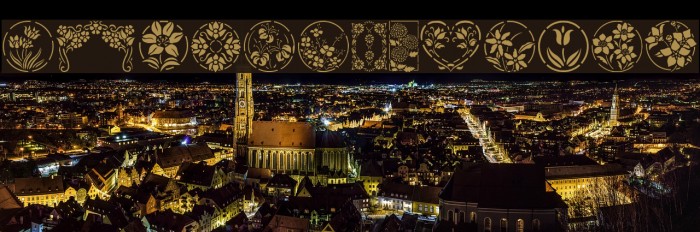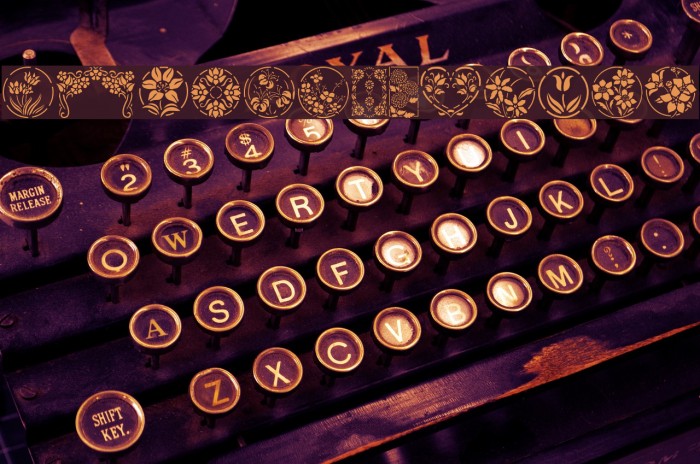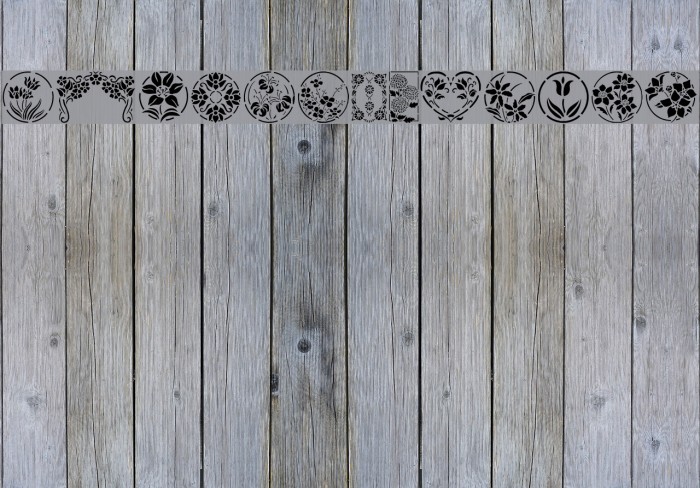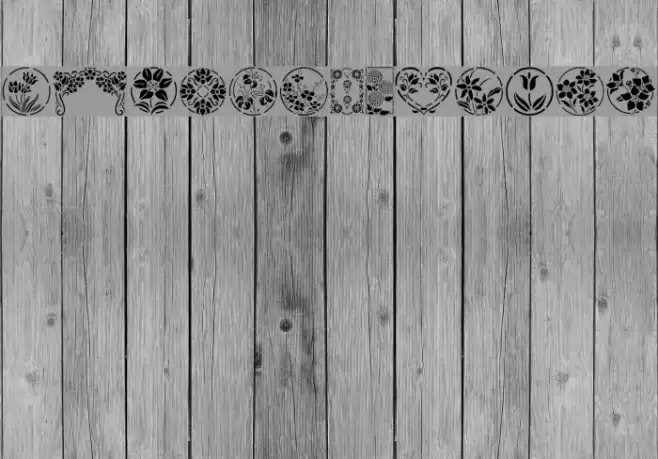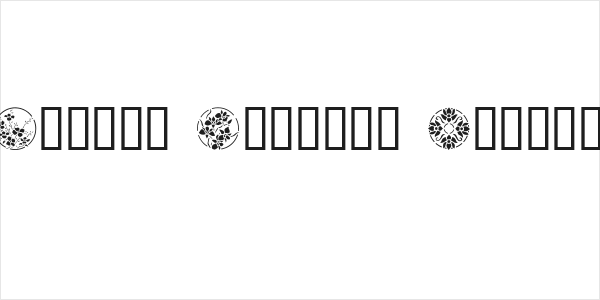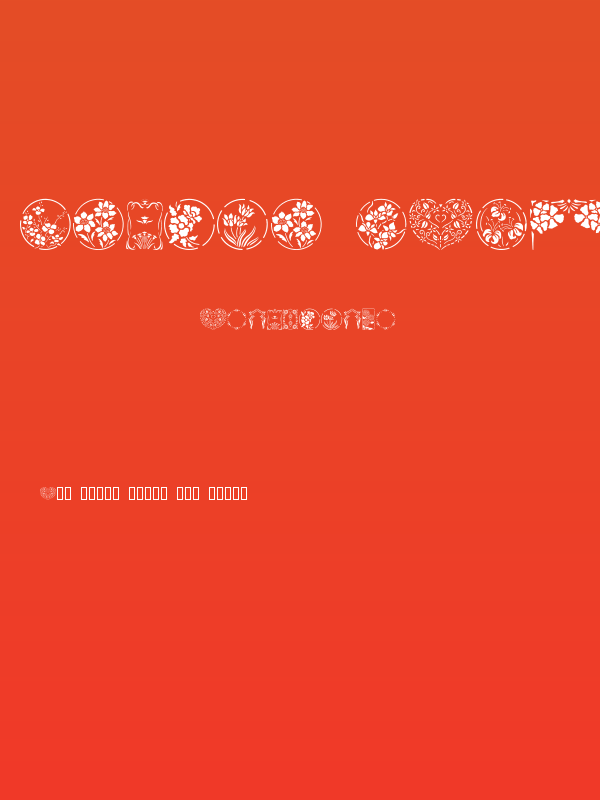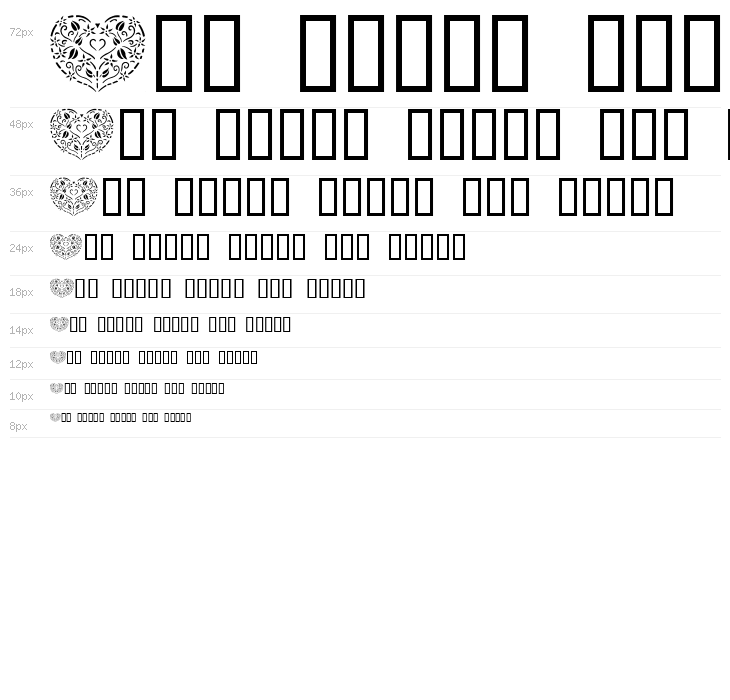
Floral Stencil Design Font
Floral Stencil Design Description
A decorative display font featuring intricate floral and stencil-inspired motifs within circular and heart-shaped frames, with each character formed by unique botanical patterns. The font is highly ornamental and designed for visual impact rather than readability in body text.
| Overall Style | Decorative, Ornamental, Artistic |
| Use Case | Logos, Headlines, Decorative initials, Event materials |
| Proposed Projects | Greeting cards, invitations, decorative posters, branding for florists, craft projects, event signage. |